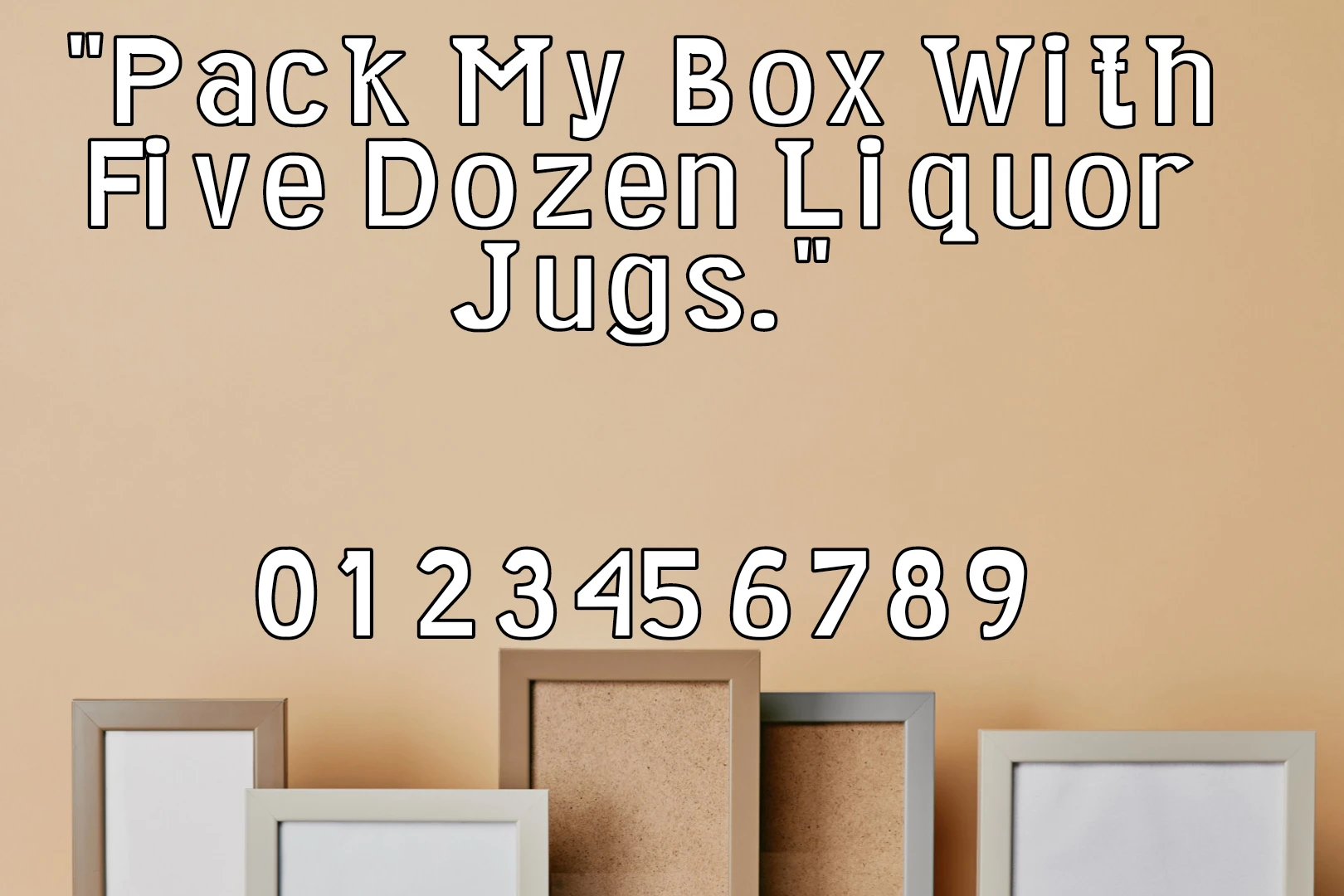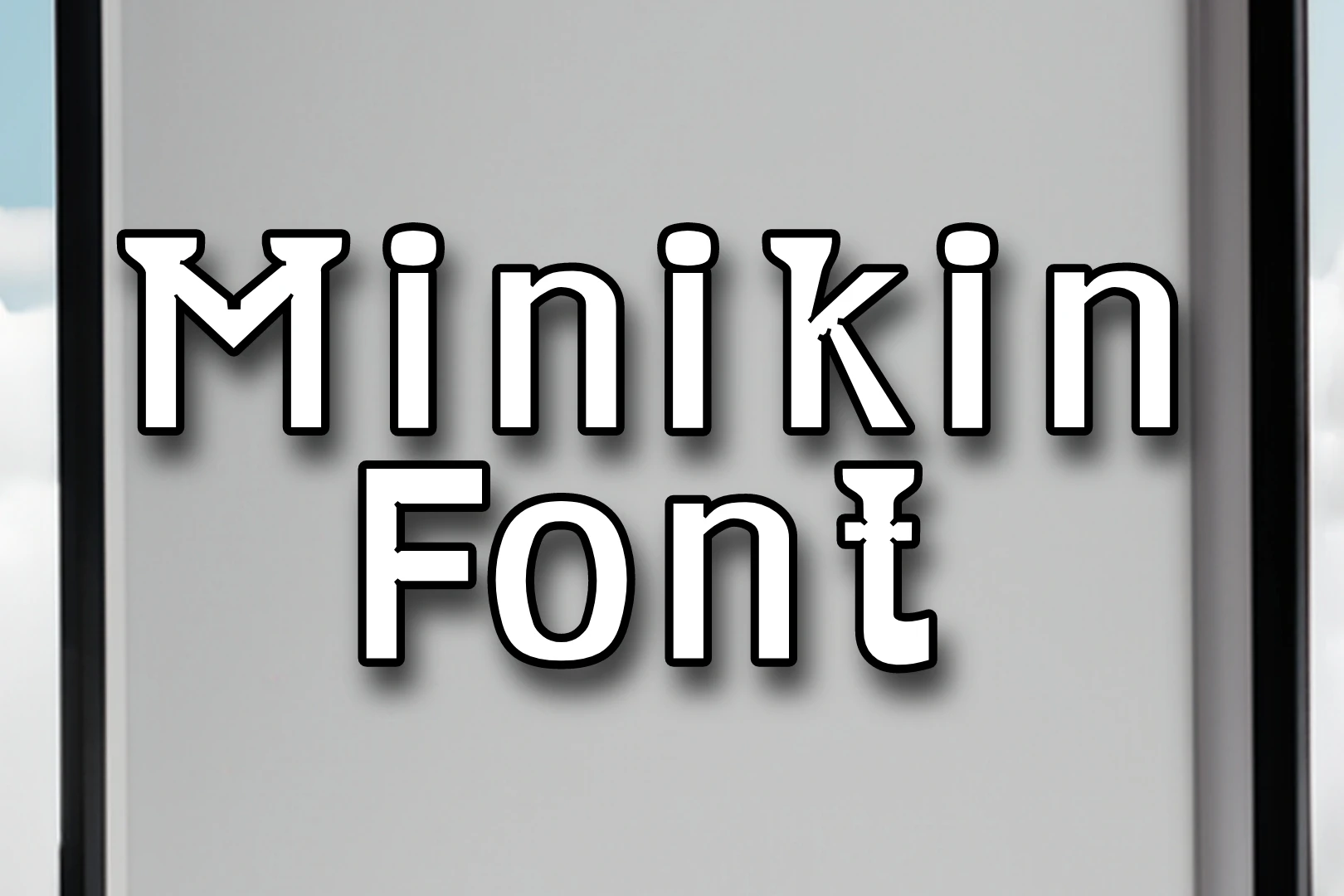
Minikin font, a remarkable creation by designer Graham Herrli, stands out as an exceptional typeface within typography. Published with precision and care, this font family boasts unique characteristics that set it apart, particularly as a semi-serif font with serifs exclusively adorning ascenders and descenders. The deliberate design choice of wide ascenders and descenders contributes to its distinct visual appeal.
This exquisite typeface offers two stylish versions: condensed and medium, encompassing a total of eight delightful styles such as regular, bold, light, and more. Its generator tool is ideal for a variety of graphic projects, adding versatility to your design endeavors.
Usage
Minikin font’s versatility extends across various applications, making it an excellent choice for both personal and commercial use. Whether you’re creating captivating captions or aiming for stylish displays at extremely small sizes, Minikin proves to be a reliable and aesthetically pleasing option. The thoughtfully crafted semi-serif design adds a touch of sophistication, enhancing the overall visual impact of your text.
What distinguishes Minikin font from other typefaces?
Minikin stands out with its semi-serif design, featuring serifs exclusively on ascenders and descenders, contributing to a unique visual appeal.
What sizes is Minikin typeface best suited for?
It is designed for display at extremely small sizes, making it ideal for captions and intricate text at reduced dimensions.
Who is the designer behind Minikin font?
This font is designed by Graham Herrli, a reputable designer known for his contributions to typography.